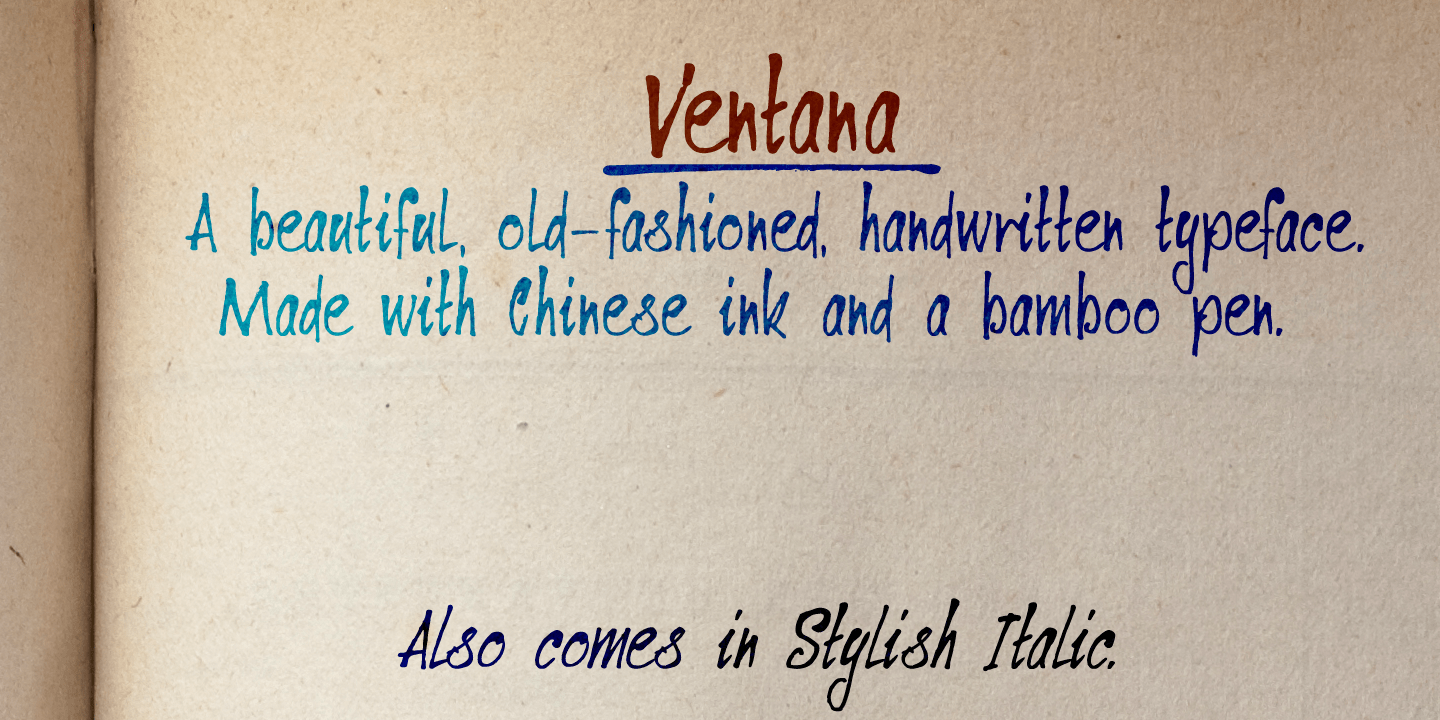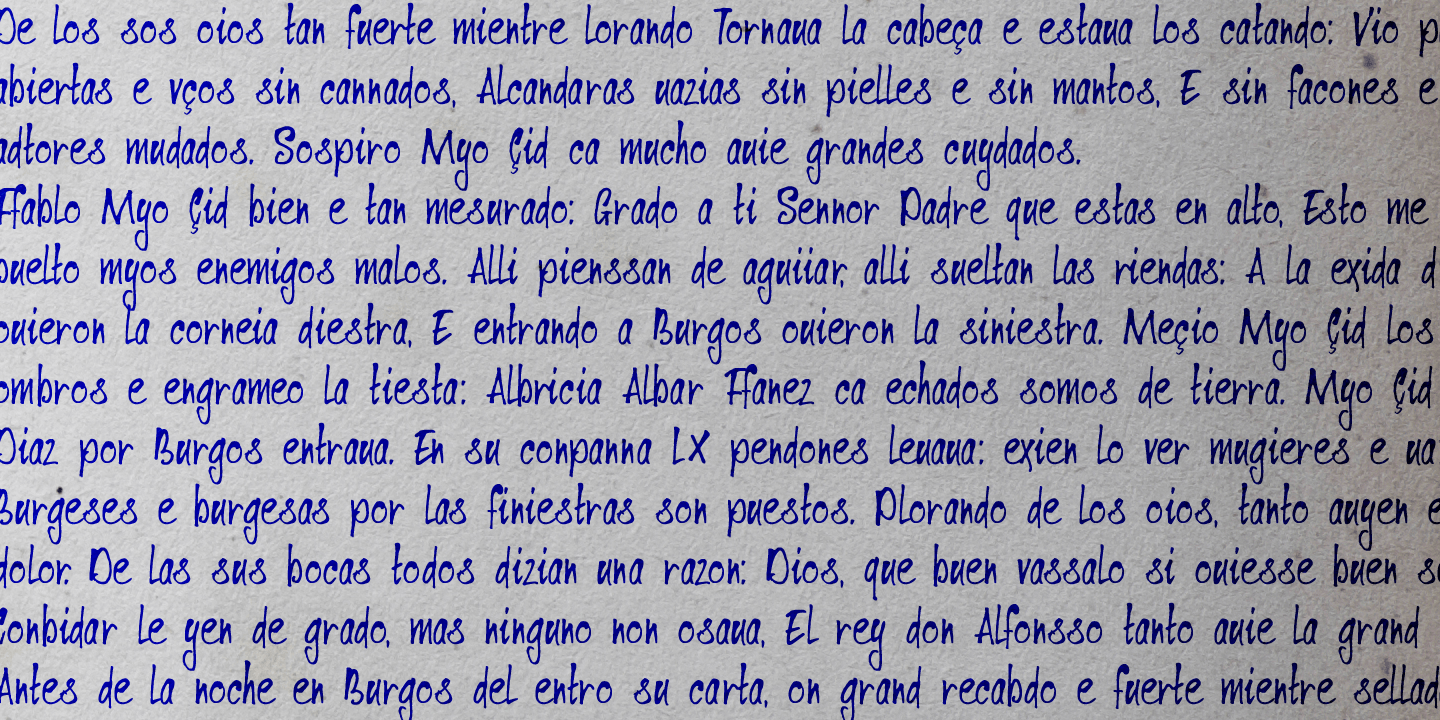
Ventana
Ventana (Spanish for window) is an old-fashioned handwritten typeface. It was created using Chinese ink and a bamboo pen. The result is a rather classy, stylish font. Ventana is highly legible and comes with all the diacritics you'd probably ever want.